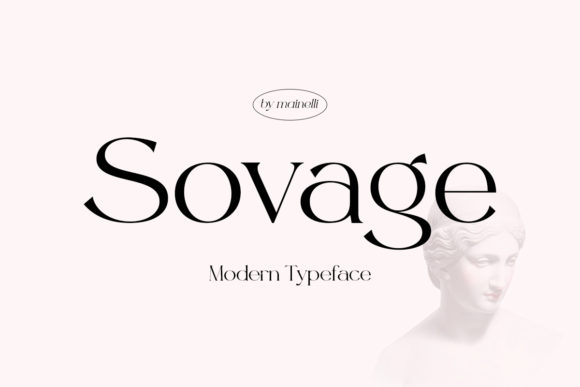
In a world of digital expressions, where words dance across screens and pixels paint emotions, meet Sovage Font – a serif masterpiece crafted for the discerning eye. Mainelli, the font's creator, poured artistry into each curve and stroke, resulting in a delicate, thin lettered vision that exudes elegance. Sovage is not just a font; it's an invitation to let your imagination soar, to capture the essence of stories untold, and to share your vision with the world.
Sovage Font embraces the essence of modern sophistication, seamlessly harmonizing with the digital landscape. Its graceful serifs lend an air of timeless charm, while its clean lines and sharp angles evoke a contemporary edge. This duality creates a captivating aesthetic that draws the eye and captivates the senses.
With Sovage Font as your creative ally, you'll find endless possibilities at your fingertips. Its versatility shines in an array of applications, from captivating logos and branding projects to stunning website designs and social media posts. Sovage's inherent elegance lends itself beautifully to wedding invitations, adding a touch of ethereal romance to your special day. But its versatility doesn't end there. Its delicate strokes bring a touch of refinement to brochures, flyers, and marketing materials, leaving a lasting impression on your audience.
The beauty of Sovage Font lies in its ability to transform the ordinary into the extraordinary. Its thin, flowing lines and subtly flared serifs evoke a sense of movement and energy, as if each letter is dancing across the page. This dynamic quality makes Sovage Font perfect for capturing attention in display settings, where it commands the spotlight with grace and poise.
Sovage Font is more than just a collection of characters; it's an expression of creativity, a reflection of style, and a window into your unique vision. Embrace the elegance, revel in the versatility, and unleash the power of Sovage Font to elevate your digital creations to new heights.